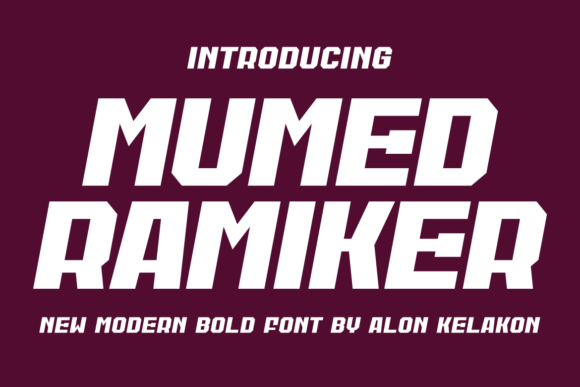
Behold Mumed Ramiker Font, a sans serif typeface that exudes boundless power and sophistication. Designed by the ingenious alonkelakon, this font family radiates strength and masculinity, making it the ultimate choice for crafting logos that command attention. Its sharp, geometrical-shaped characters dance across your designs with unparalleled boldness, leaving an indelible impression.
With Mumed Ramiker Font, your designs transcend mediocrity and ascend to the realm of the extraordinary. Its captivating presence adds a touch of allure to logos, posters, and headlines, empowering your messages to resonate with audiences. Whether you seek to ignite passion in your branding or deliver a message with unstoppable force, this font is your steadfast ally.
Experience the limitless possibilities of Mumed Ramiker Font. Its clean lines and modern aesthetic seamlessly blend with any design concept, effortlessly elevating your projects to new heights. Unleash your creativity and let this font guide you towards visual masterpieces that captivate and inspire. Embrace the boldness of Mumed Ramiker, and embark on a journey of design excellence.